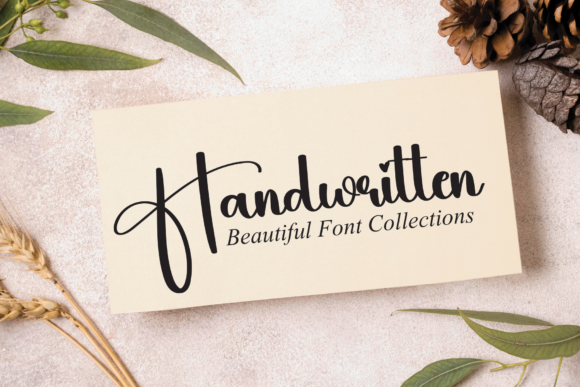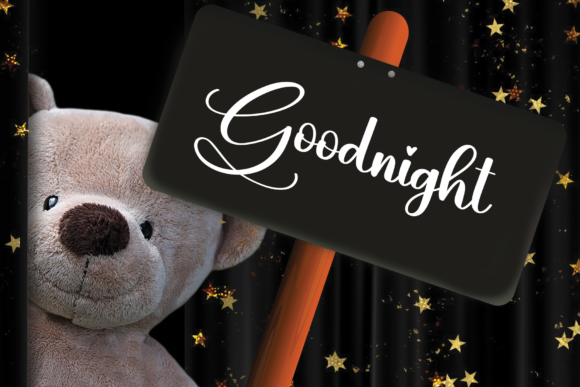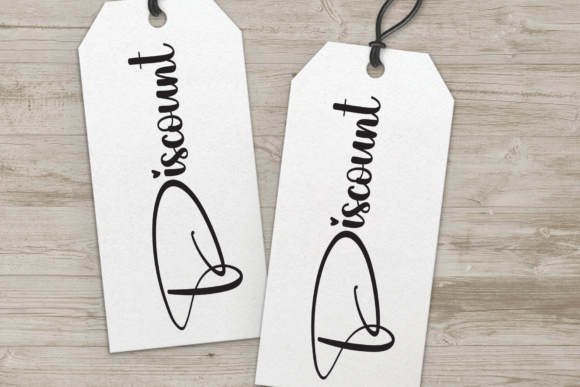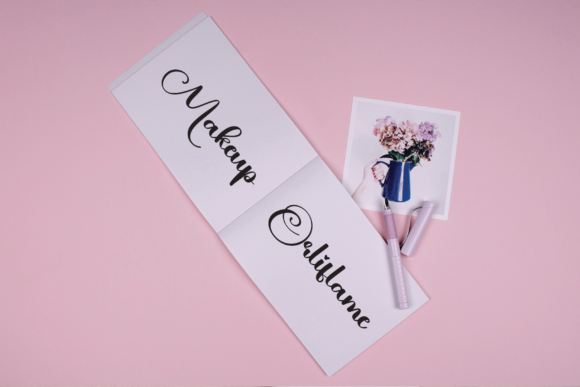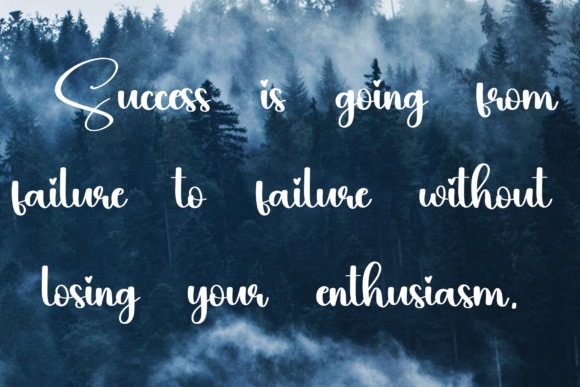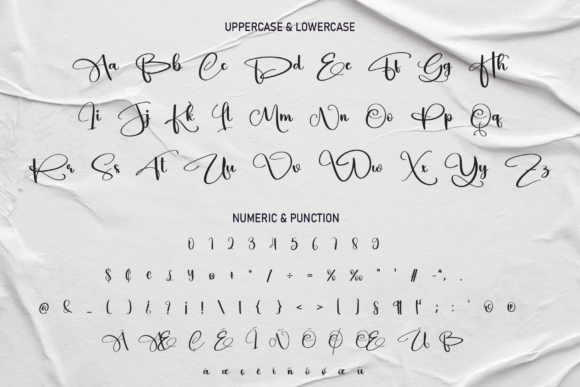
Rainy Font
Rainy is a beautiful script font with hearts for dots and swashes. This font will radiate the romantic feeling of your design. It can be used for a wide range of applications, such as wedding design, logos, invitations, social media posts, and others.